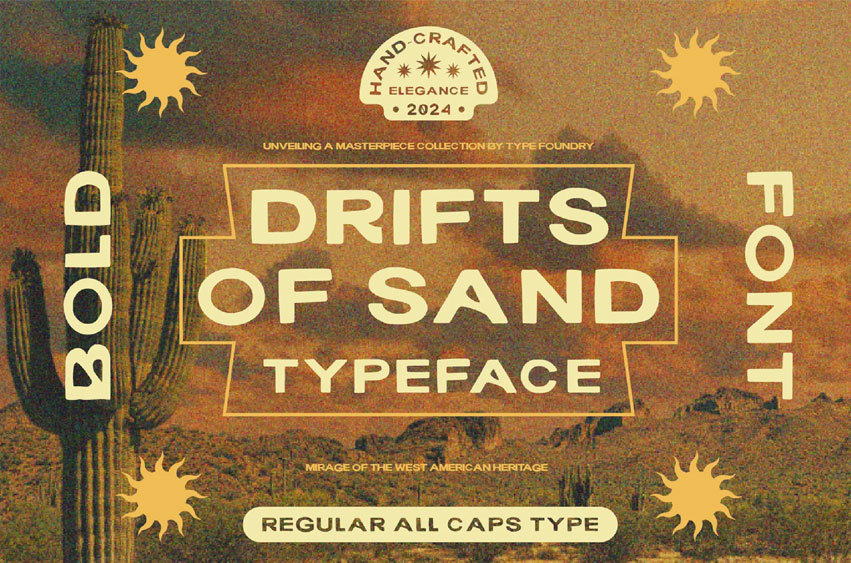
Drift Of Sand Font
Drift Of Sand Font showcases a sans serif style with an authentic hand-drawn touch, bringing a personal and organic feel to each letter.
Every character is crafted with subtle, slightly rough strokes, creating a casual aesthetic that remains clear and highly readable.